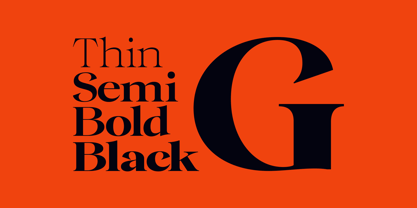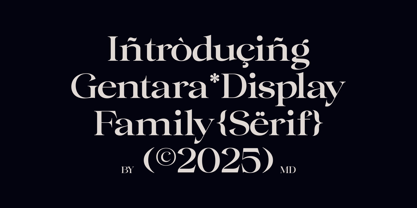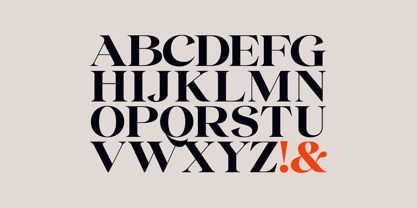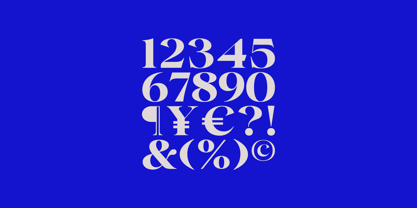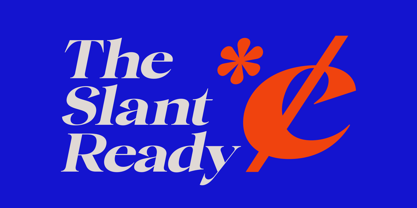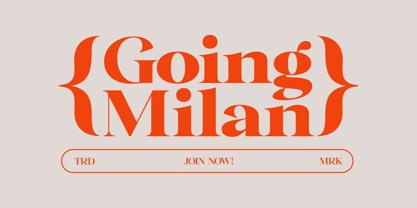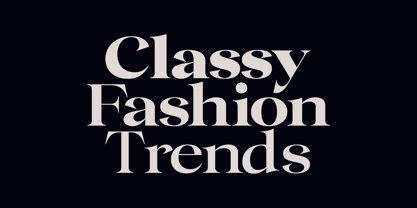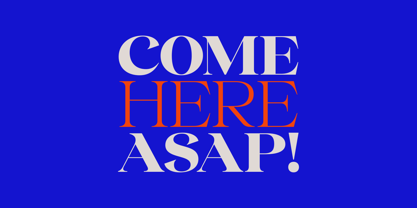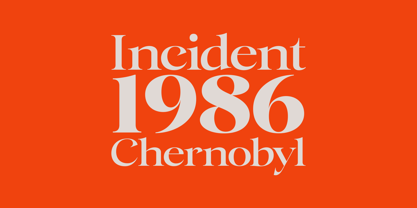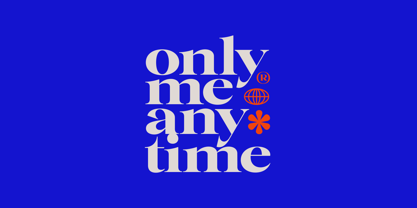
Gentara
by Marvadesign
The Gentara Font Family was designed by Febrie Setiawan and published by Marvadesign. Gentara contains 18 styles and family package options. More about this family
Gentara is a refined and expressive serif display family crafted to bring elegance, personality, and contemporary sophistication to visual design. Featuring 18 versatile styles, including beautifully crafted italic variations, Gentara blends sharp modern curves with classic serif structure, creating a dramatic yet balanced typographic presence. Its high contrast strokes, sculpted terminals, and distinctive stylistic details make it ideal for editorial headlines, branding, fashion campaigns, and impactful typographic compositions. Whether used in bold statements or subtle refined layouts, Gentara delivers a strong visual identity with timeless charm and modern flair.
Designers: Febrie Setiawan
Foundry: Marvadesign